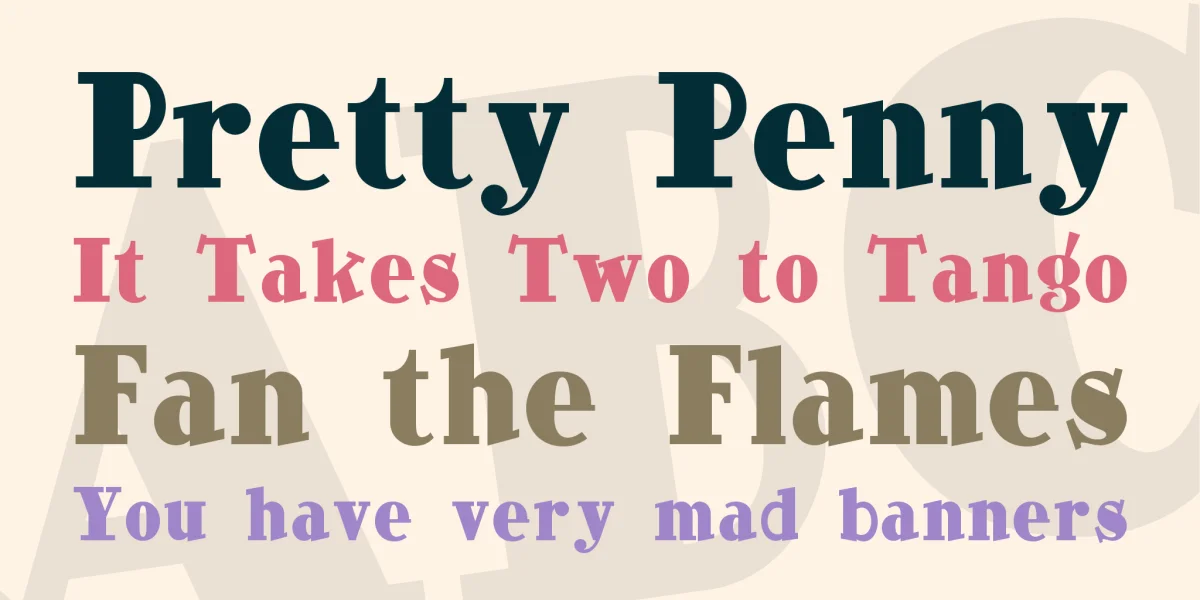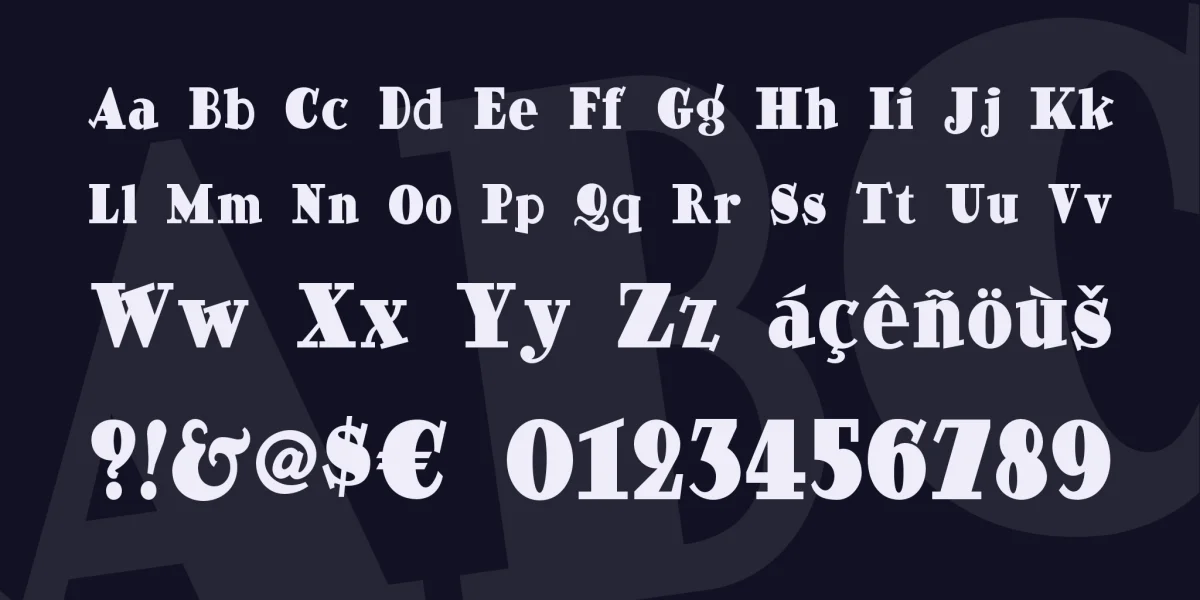
A reworking of Goudy Stout with its signature truckin' A — the lines have been cleaned up, and a lower case has been added, with a slightly manic "g." Originally called "Beatnick.”